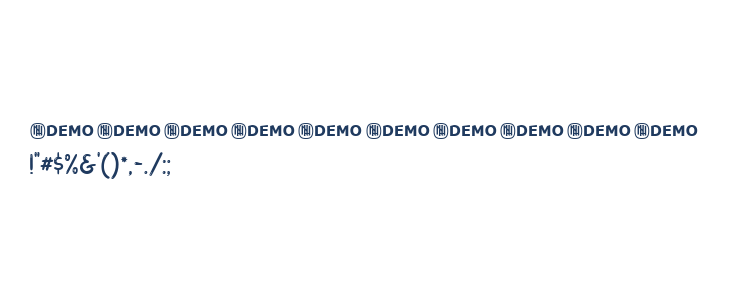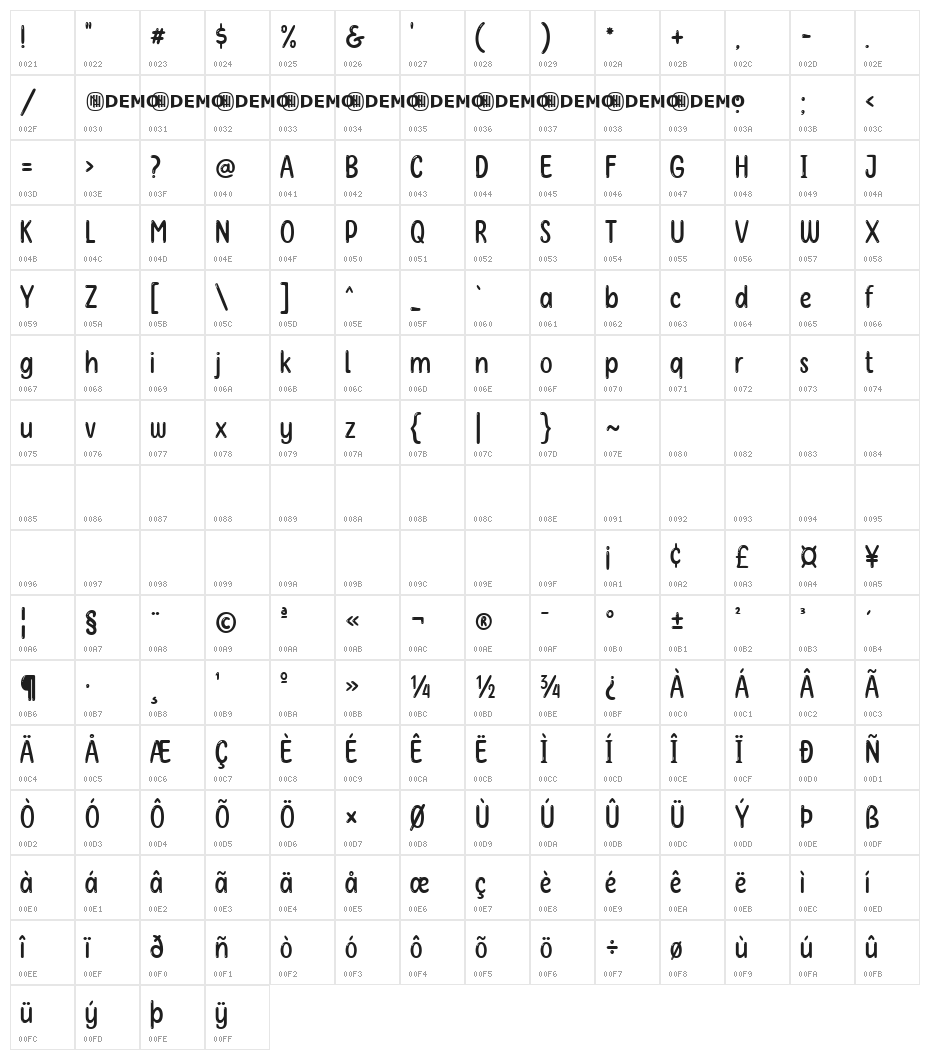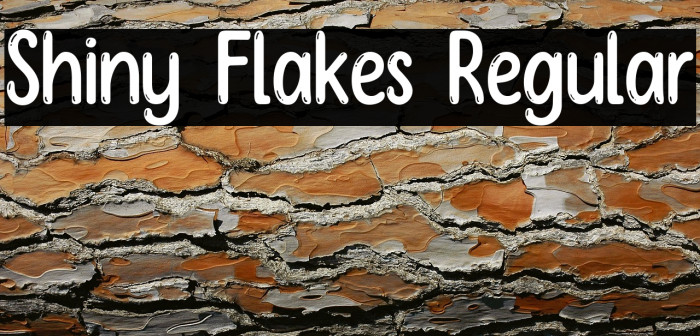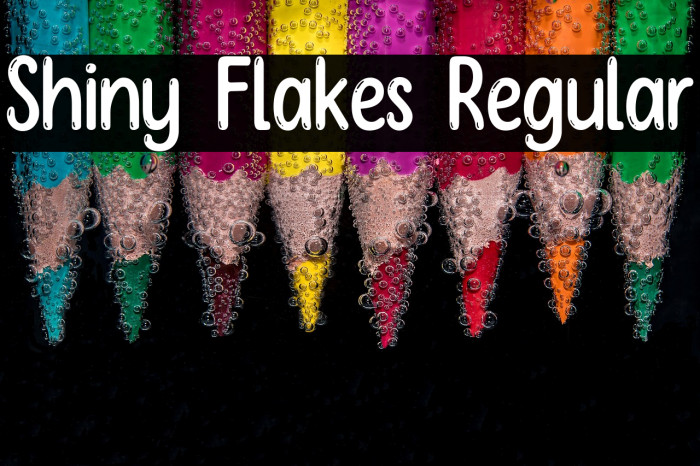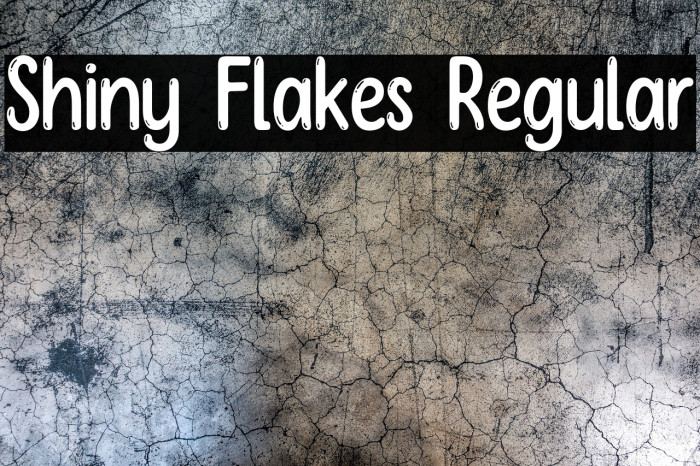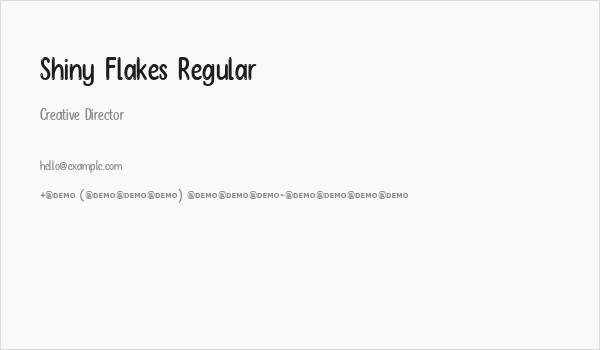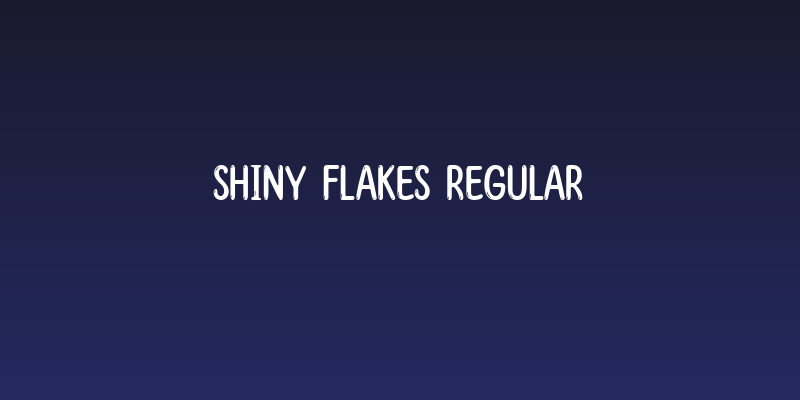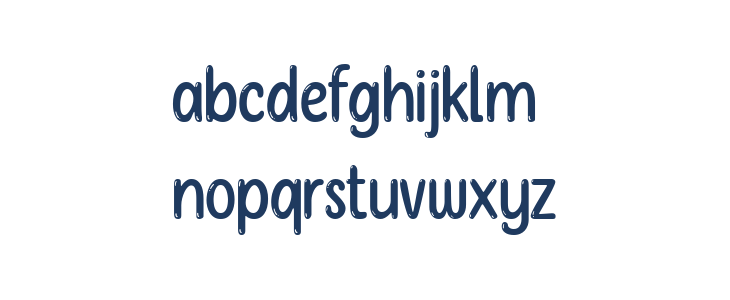
Shiny Flakes Regular Font
| Stile generale | Playful, Whimsical |
| Caso d'uso | Logos, Posters, Creative projects |
| Progetti proposti | Ideal for children's books, playful branding, greeting cards, and creative posters. |